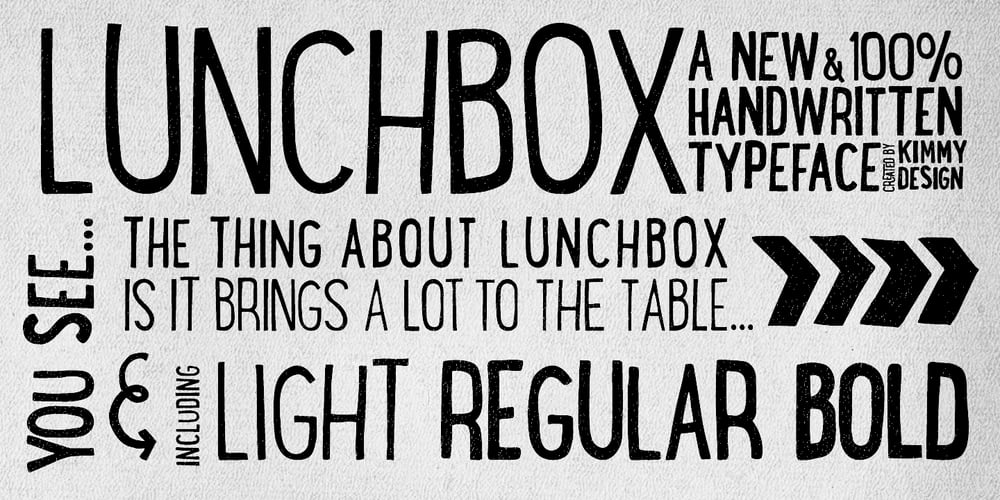
LunchBox Font Family was designed by published by Kimmy Design. LunchBox contains 4 styles and family package options. LunchBox is a uniquely hand-drawn typeface that gives infinite customizable options and a fully authentic look. Using Lunchbox’s OpenType features gives access to over 1,500 different characters. Contextual alternatives give each letter 4 different character styles, all cycling through each other to ensure that no two letters ever show up together. There is also a custom set of small caps, each with 4 style variations as well. Stylistic alternatives give an extra hand-drawn flourish, loop and slight variation, also with 4 different styles per letter. Discretionary ligatures pertain to both regular all caps Lunchbox as well as stylistic alternatives. It takes special letters and gives a unique interaction with the characters around them, giving your design a unique and personalized look. Swashes also have four style variations to both the regular and stylistic alternatives, as well as lowercase letters with ascenders and descenders. All of these options are available in Light, Regular and Bold and can be purchased with Lunchbox Ornaments for an extra element. If you do not use Opentype but are using a program that includes a full glyph panel, you will be able to access each of the style variations you want. Enjoy!